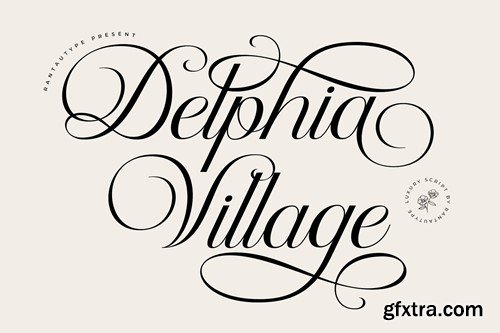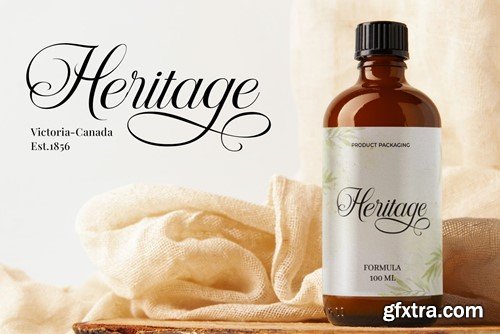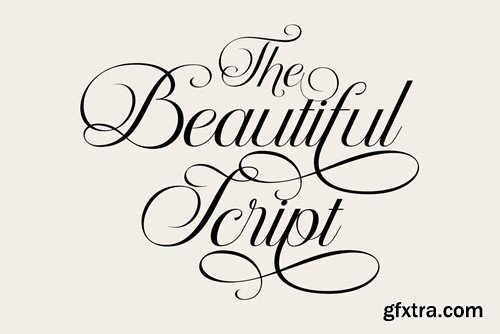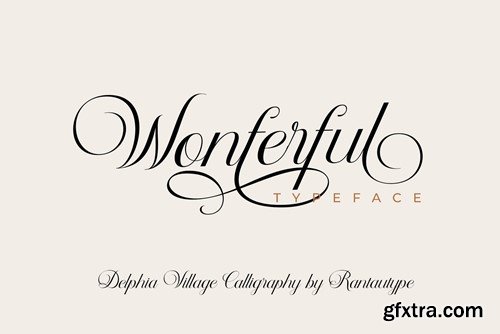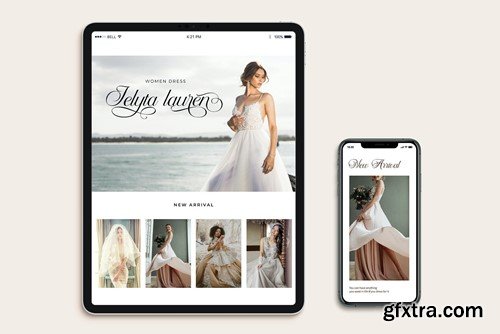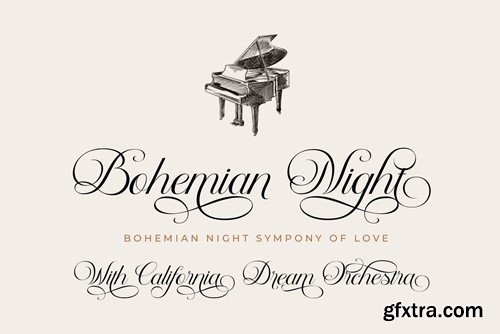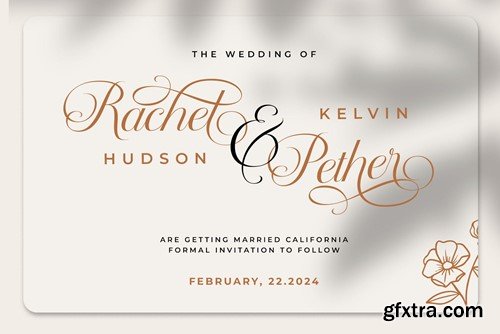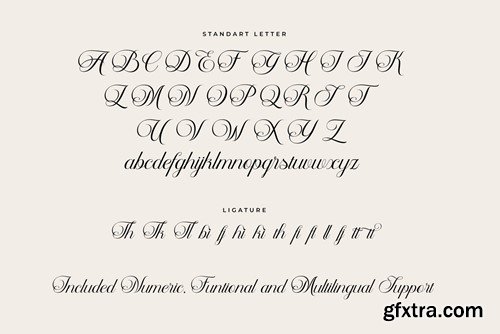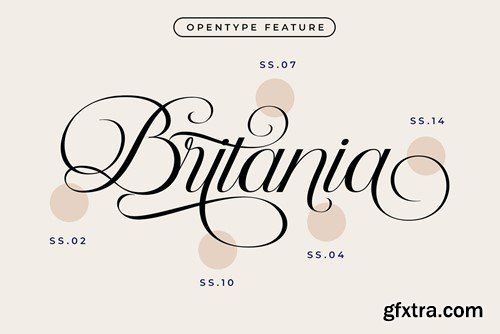
Experience elegancy in a visual form for your design with delphia village font. Inspired by elegant brand and calligraphy concept, delicate curves and refined details create a sense of sophistication and femininity. Delphia village brings a touch of charm and sophistication to branding, editorial designs, and more. We keep this font looks fashionable, elegant, luxury, premium, modern, catchy and easy to use with its versatility and contemporary appeal. Delphia village come with ligature, beautiful alternate and already support multingual character. Delphia village is a beautiful choice for any creative endeavor, chic, lifestyle design such as logos, title, watermark on photography, cover, branding, display and magazine, wedding event, corporate brand, quotes, album cover, business card, business project and many other design project. Features: File include:* Langguage support: Afrikaans, Albanian, Asu, Basque, Bemba, Bena, Breton, Chiga, Cornish, Dutch, English, Estonian, Filipino, Finnish, Friulian, Galician, Gusii, Indonesian, Irish, Italian, Kabuverdianu, Kalenjin, Kinyarwanda, Luo, Luxembourgish, Luyia, Machame, Makhuwa-Meetto, Makonde, Malagasy, Manx, Morisyen, North, Ndebele, Nyankole, Oromo, Portuguese, Quechua, Romansh, Rombo, Rundi, Rwa, Samburu, Sango, Sangu, Scottish, Gaelic, Sena, Shambala, Shona, Soga, Somali, Spanish, Swahili, Swedish, Swiss, German, Taita, TesoUzbek (Latin), Volapük, Vunjo, Zulu Thank you for visit our store and Hope you enjoy our font!!